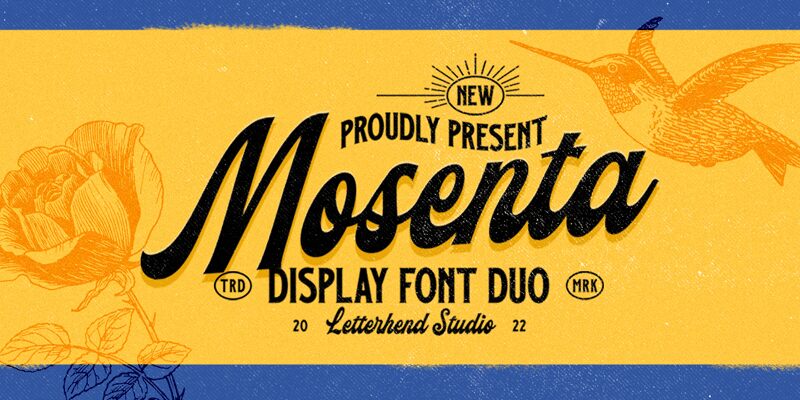
Mosenta Script, a creation of Letterhend Studio, stands out as a unique blend of elegance and contemporary flair. This semi-bold, condensed script font exhibits the artful balance of classic calligraphy with modern display sensibilities. With its fluid, coherent stroke work and refined aesthetic appeal, Mosenta Script is visually captivating and exudes a sense of bespoke craftsmanship.
Each character in Mosenta Script is designed with an eye for detail that ensures legibility while maintaining its stylistic allure. The font's display quality makes it perfect for high-impact headlines or logos that require a touch of sophistication without sacrificing bold presence. In addition, its condensed nature allows for efficient use of space without compromising on the font's striking appearance.
Ideal for branding projects, invitations, and any creative endeavor where personality and distinctive style are paramount, Mosenta Script promises to elevate your design with its timeless charm and versatility. Whether gracing the digital screen or printed media, this font is poised to leave an indelible impression on your audience.